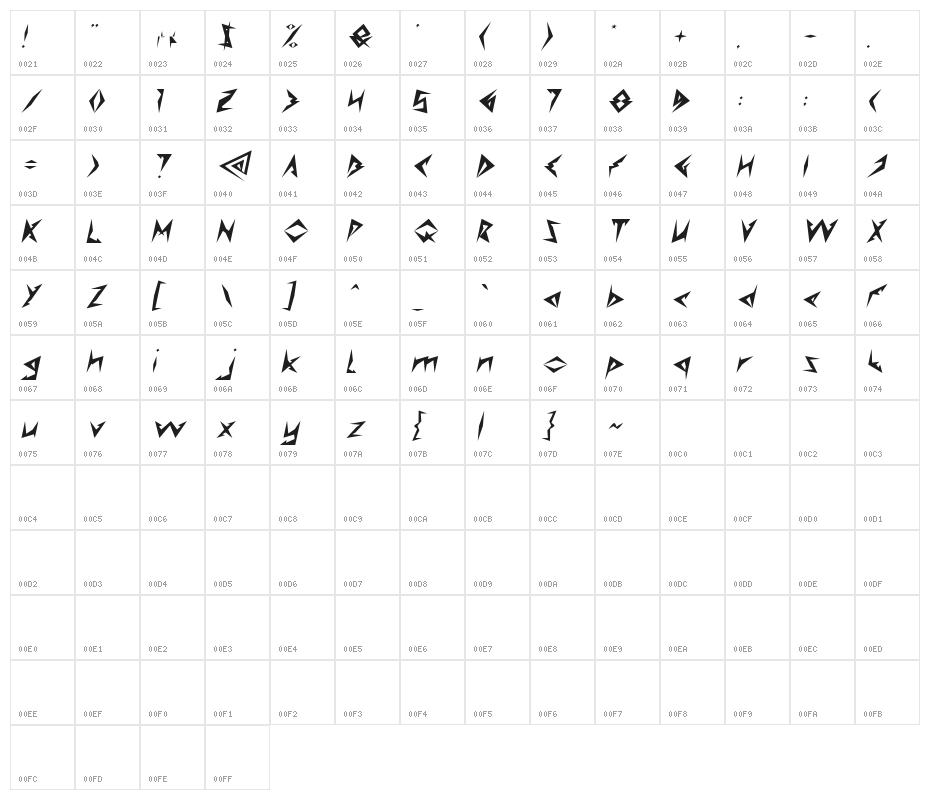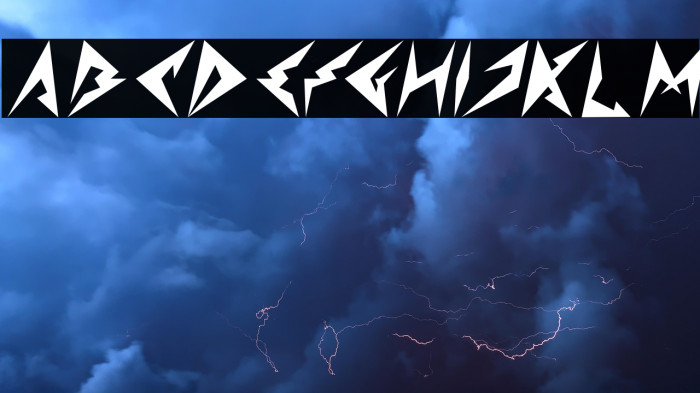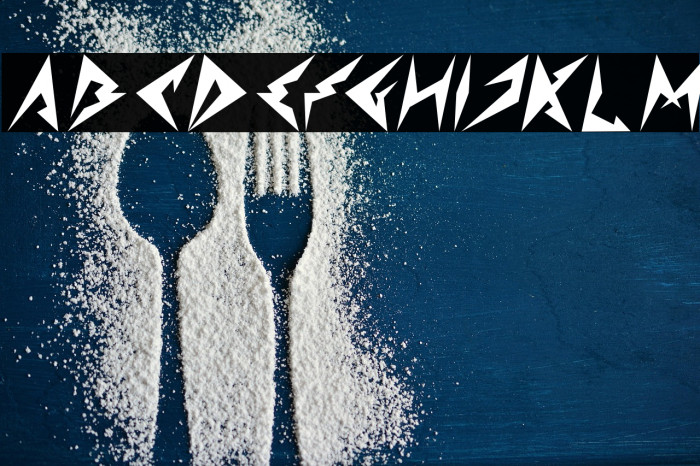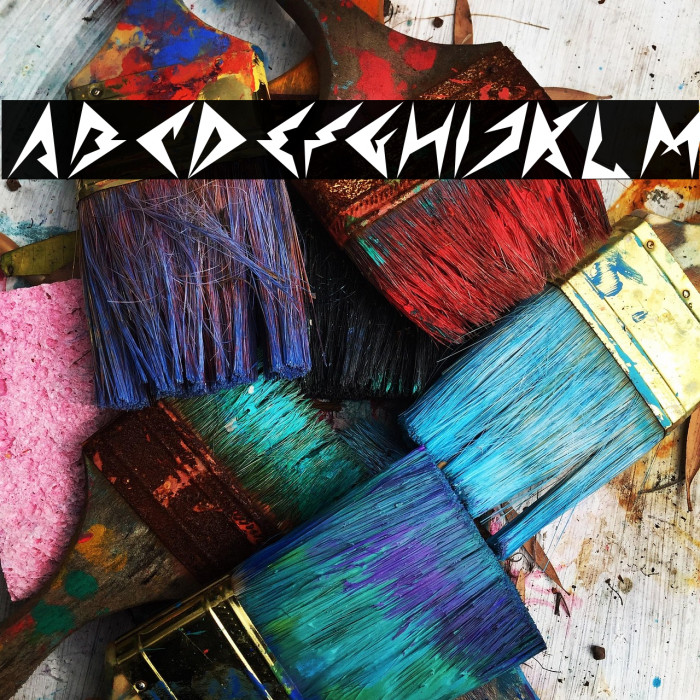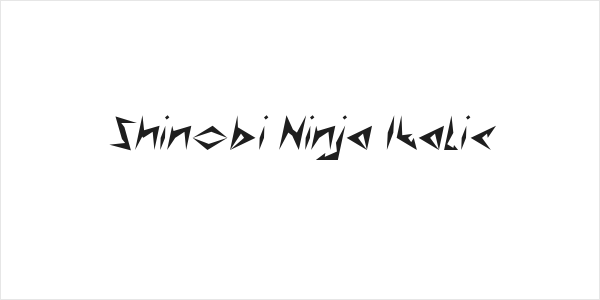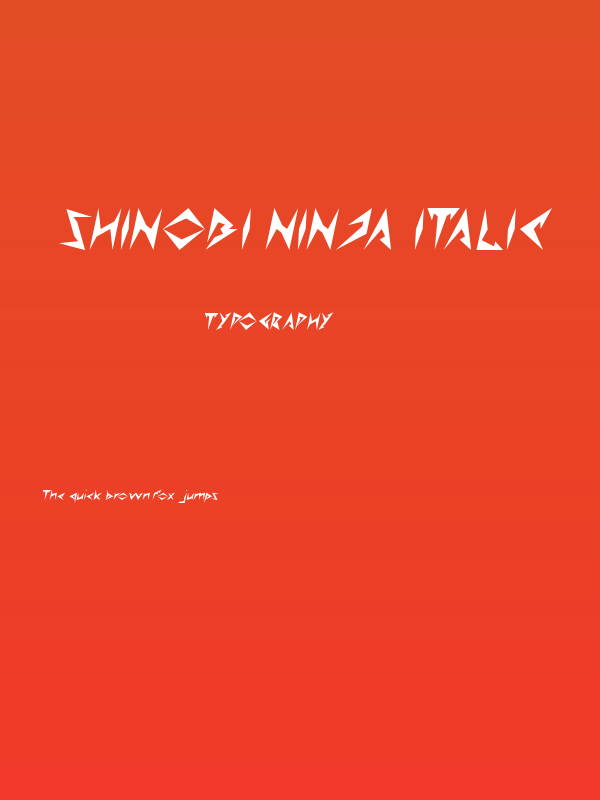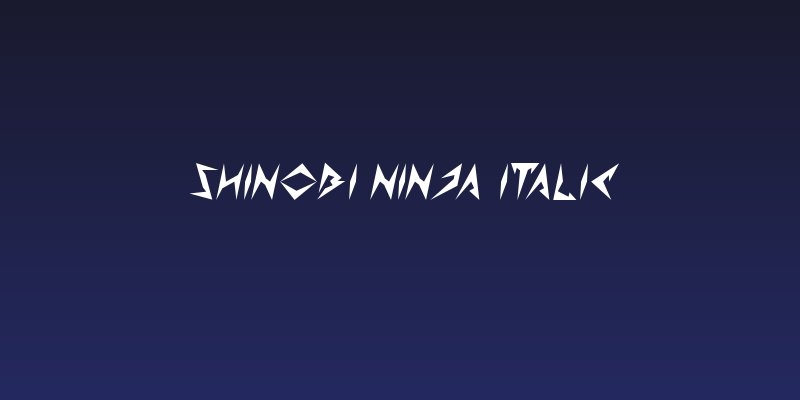
Shinobi Ninja Italic Font
Shinobi Ninja Italic Description
This font features a bold and dynamic design with sharp, angular edges and a distinct italic slant. The characters are highly stylized, resembling ninja-like or stealthy aesthetics, with a sense of motion and energy. Each letterform is unique, with exaggerated points and cuts that create a sense of urgency and action. The numbers and special characters follow the same design principles, maintaining consistency across the entire typeface. This font is perfect for projects that require a strong, impactful visual presence.
| Proposed Projects | Ideal for video game titles, action movie posters, martial arts event branding, and edgy graphic design projects. |